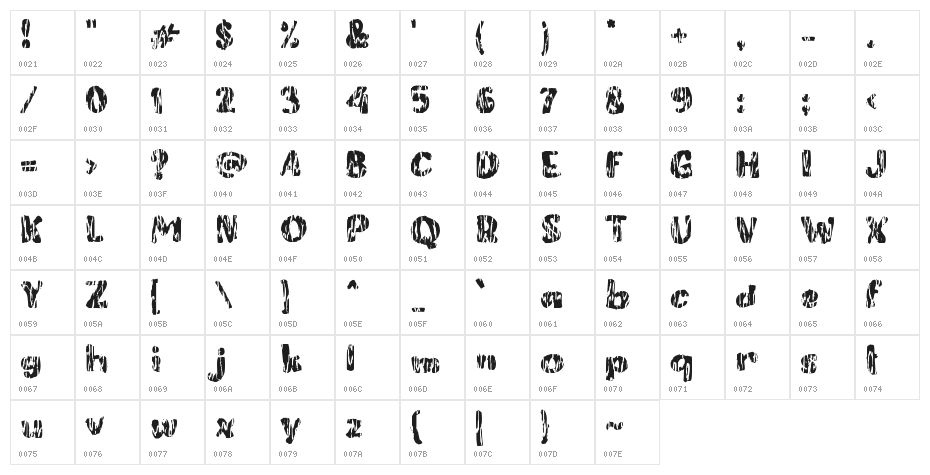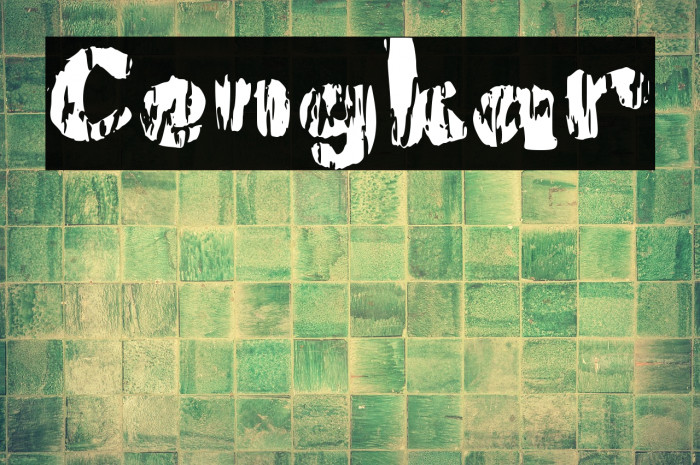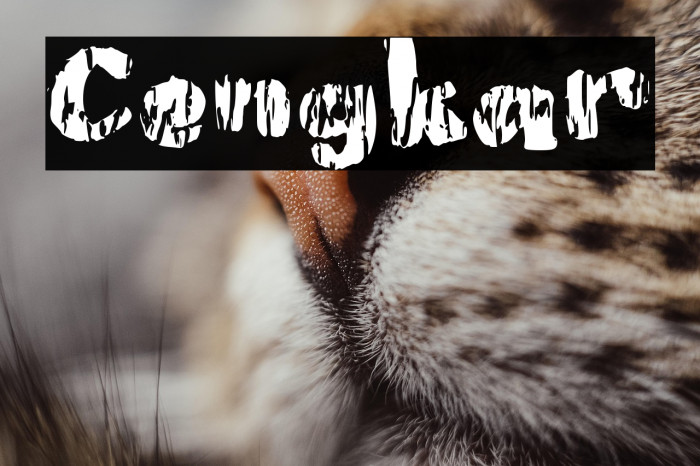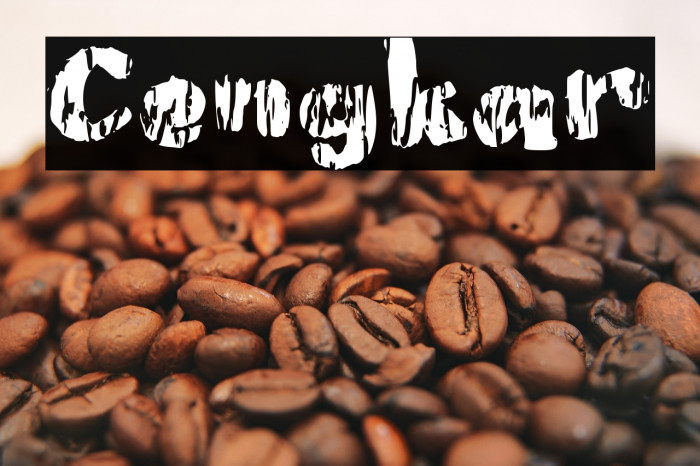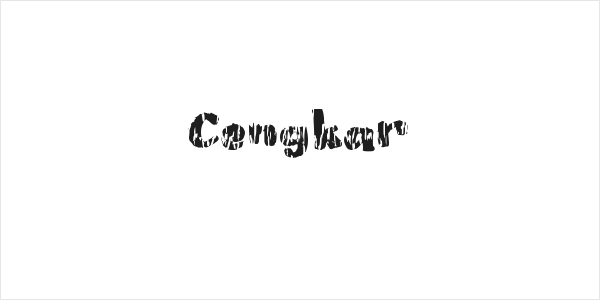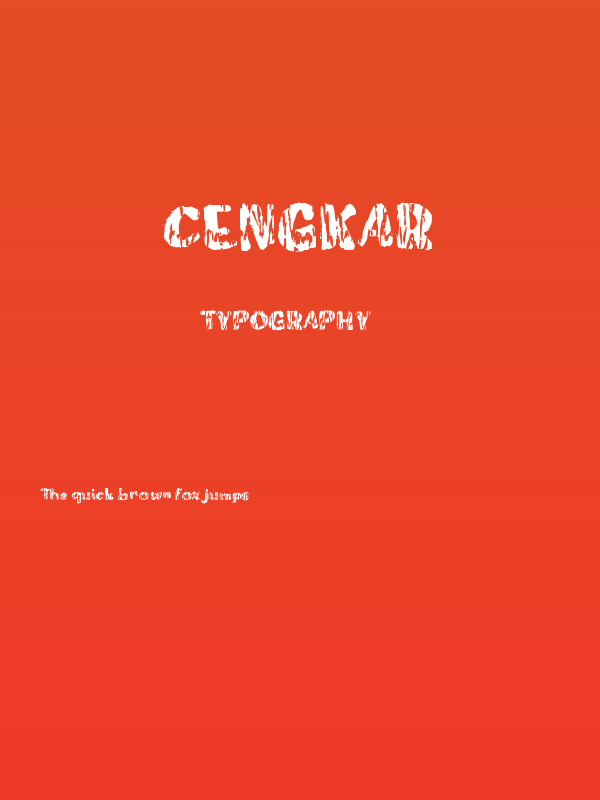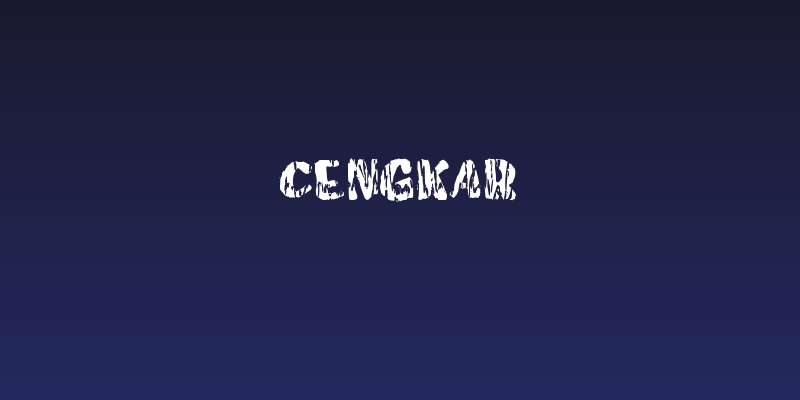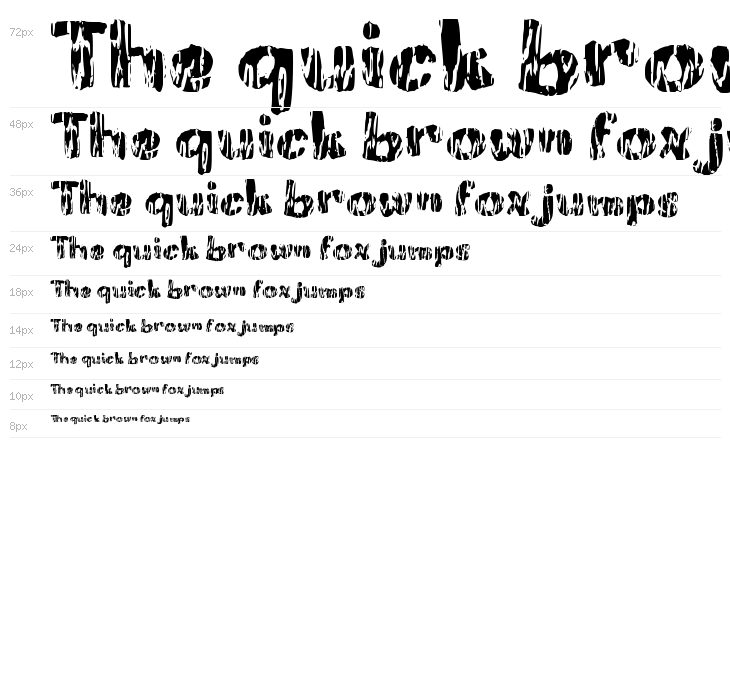
Cengkar Font
Cengkar Description
This font features a rugged, distressed appearance, with each character appearing as if it has been weathered or eroded. The bold, uneven strokes give it a unique, grunge-like aesthetic, making it stand out with its textured, rough edges. The uppercase and lowercase letters maintain a consistent style, with the uppercase being slightly more pronounced. Numbers and special characters follow the same distressed pattern, ensuring a cohesive look across all glyphs. This font's distinctive style is perfect for projects that require a bold, edgy, and unconventional look.
| Overall Style | Grunge, Edgy |
| Use Case | Headlines, Posters, Logos |
| Proposed Projects | Ideal for album covers, posters, urban-themed designs, and any project needing a gritty, textured look. |